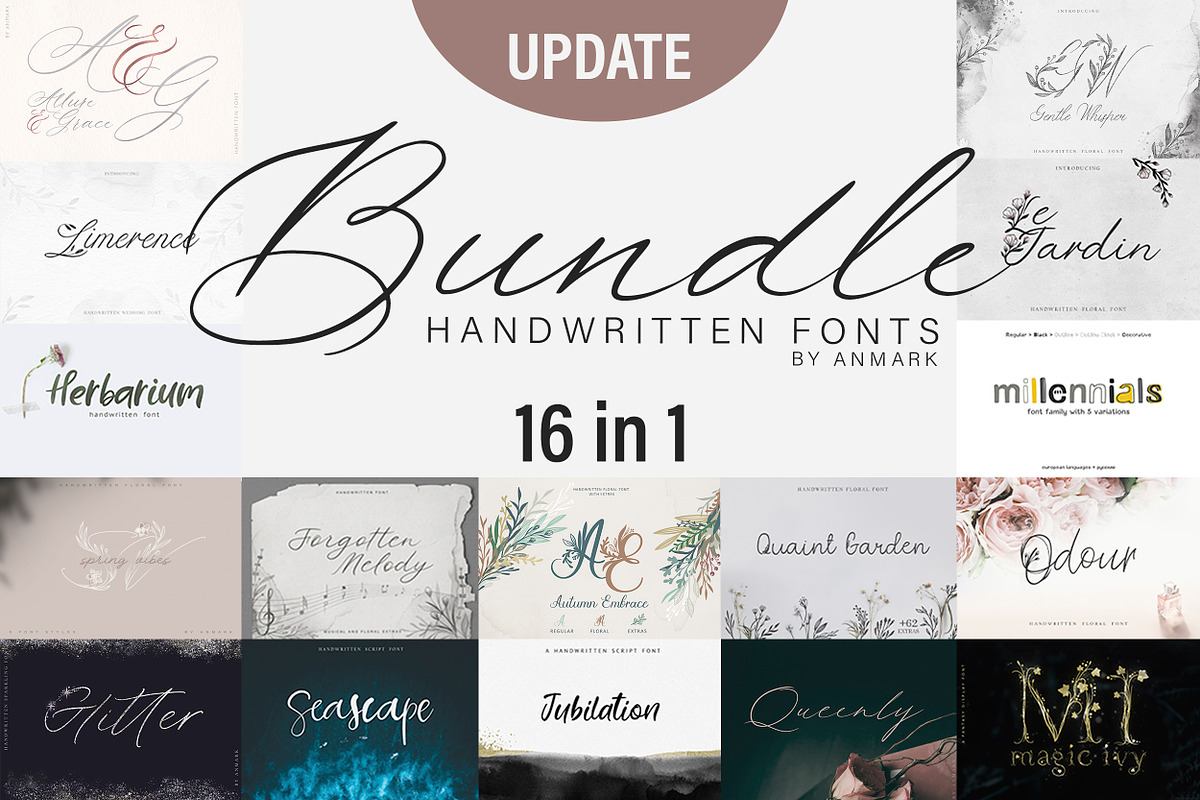
Handwritten Font BUNDLE Free Download is a curated collection of multiple handwritten fonts, offering a variety of styles, from casual scripts to more refined calligraphic designs. This bundle is perfect for any project that requires a personal, creative, and authentic touch, such as invitations, logos, branding, greeting cards, and social media content.
The Handwritten Font BUNDLE Free Download provides versatility and flexibility, allowing you to mix and match fonts for different aspects of your design, from headers to body text. Whether you're working on a wedding invitation suite, a personal brand, or a creative campaign, these fonts bring a fresh and artistic vibe to your typography.